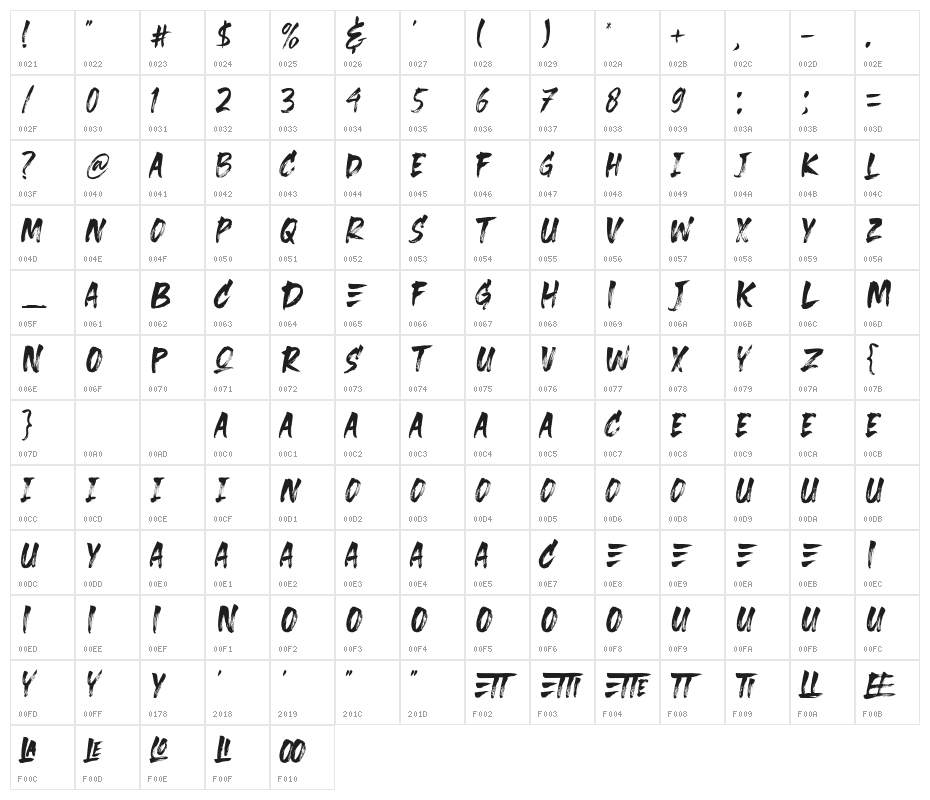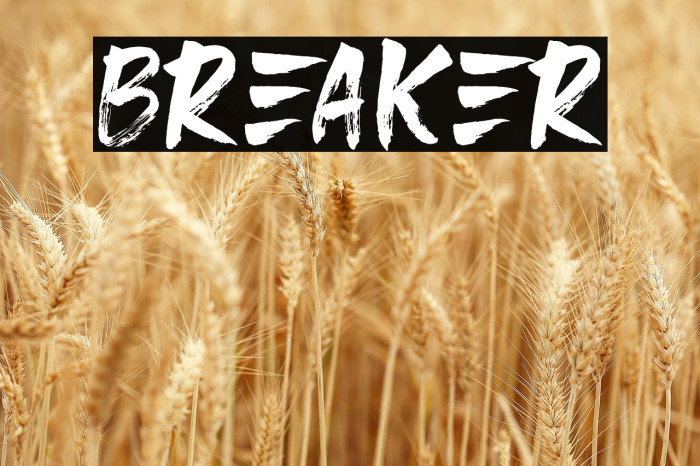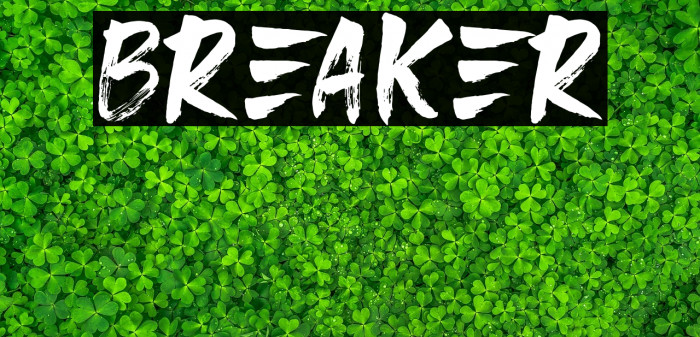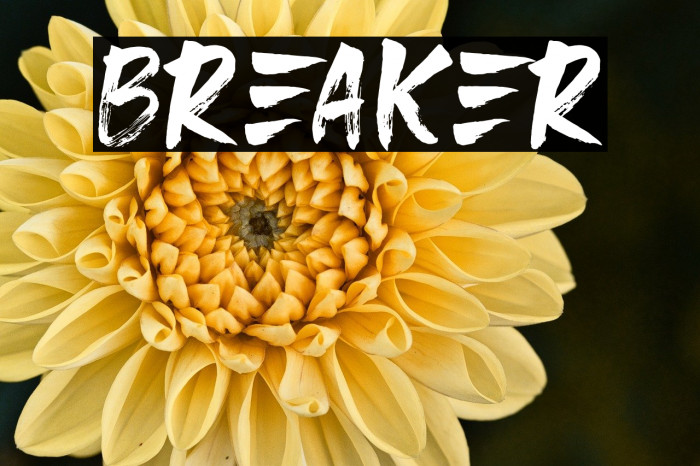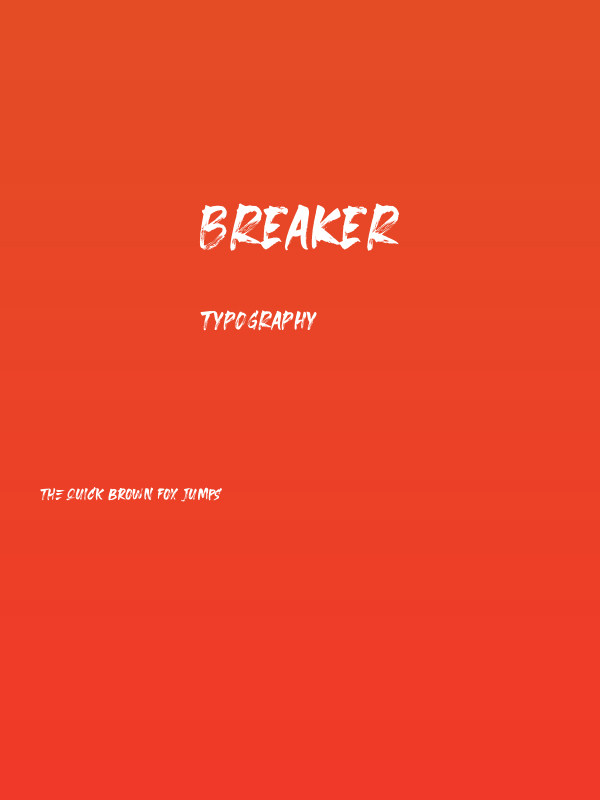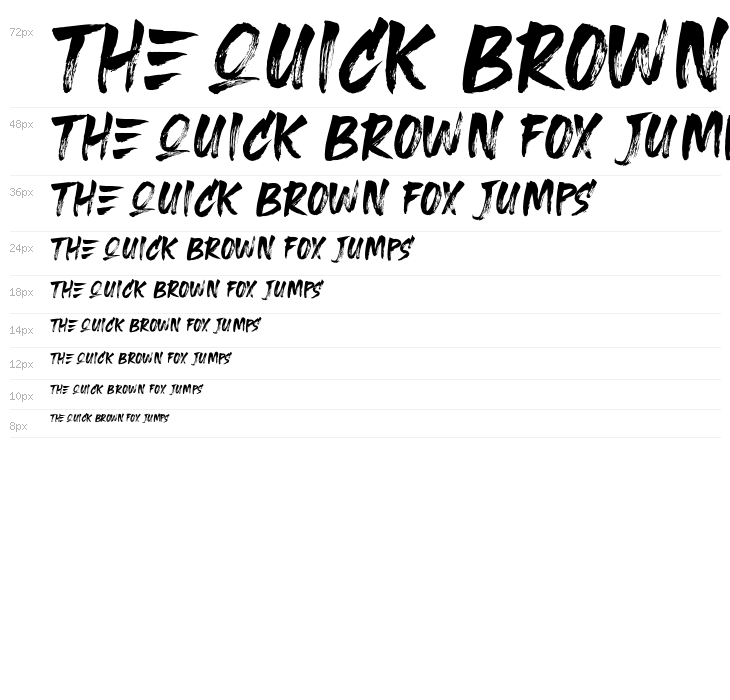
Breaker Font
Breaker Description
This font features a bold and dynamic brushstroke style, characterized by its expressive and energetic appearance. The letters are crafted with a sense of motion and fluidity, giving them a hand-painted look. The strokes vary in thickness, adding a sense of depth and texture to the characters. This font is highly legible despite its artistic flair, making it suitable for impactful designs. The uppercase and lowercase letters maintain a consistent style, while the numerals and special characters complement the overall aesthetic. Its unique style makes it stand out, perfect for creative and bold projects.
| Overall Style | Modern, Artistic |
| Proposed Projects | Ideal for posters, branding, album covers, and any project requiring a bold, artistic touch. |